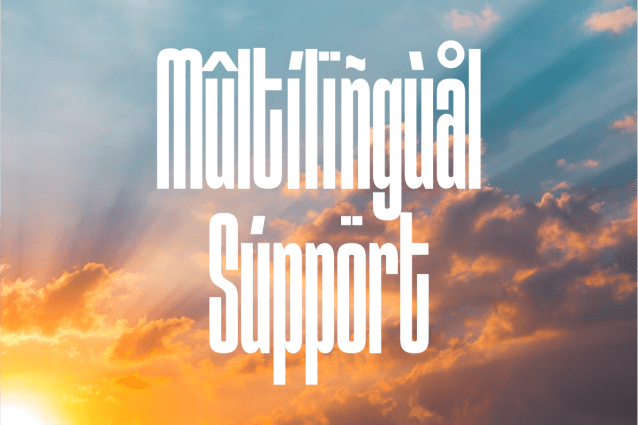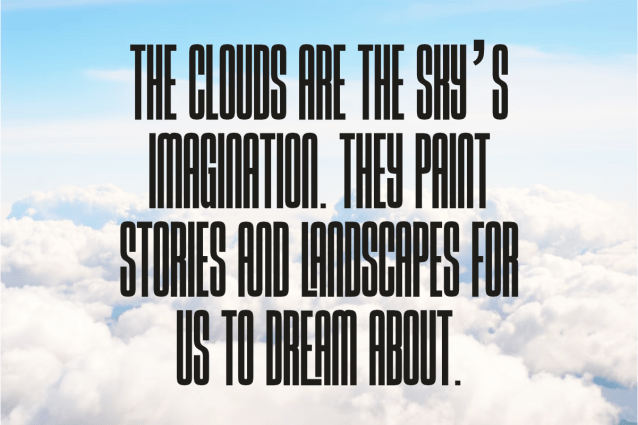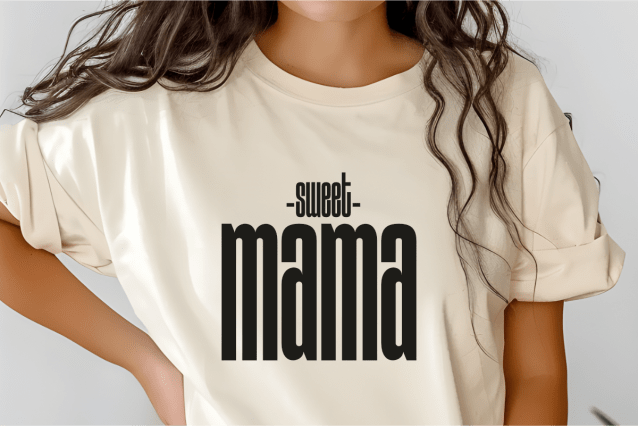
Super Sans is a tall and ultra-condensed sans serif font that combines modern minimalism with bold visual impact. Its elongated letterforms create a sleek and powerful presence, making it perfect for eye-catching headlines, stylish posters, bold branding, fashion editorials, sports graphics, and digital media projects. With a clean yet commanding design, SuperSans delivers clarity and sophistication in every character, ensuring your message stands out with style and authority.